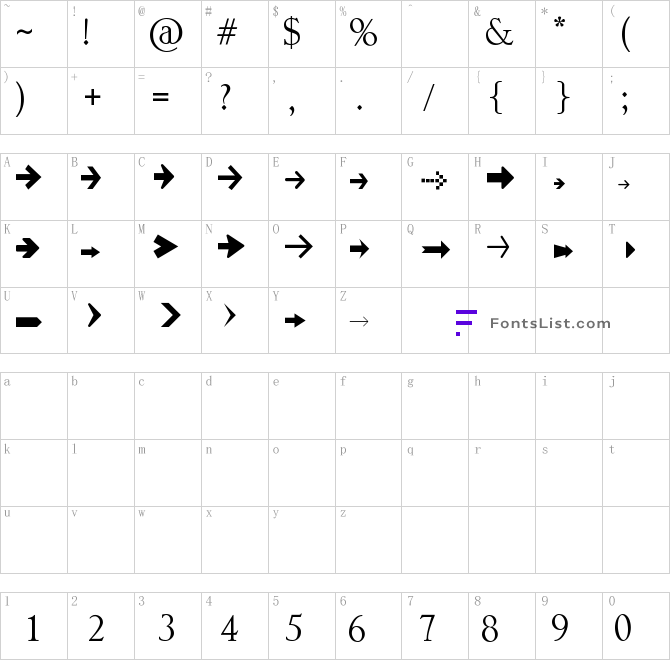
- Font Name:Arrow Symbols 1
Arrow-Symbols-1.ttf is a very beautiful artistic font, Arrow-Symbols-1.ttf is widely used in the design and printing of various books and pictures,Arrow-Symbols-1.ttf has a strong visual impact,Arrow-Symbols-1.ttf is a commonly used font in newspapers, magazines and books, and is used in posters, e-commerce Poster design, store design, logo design, font design and other fields.Arrow-Symbols-1.